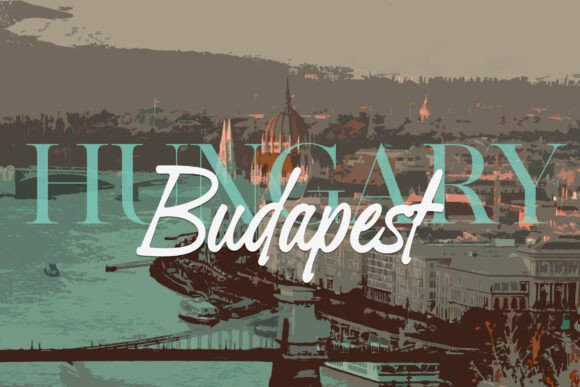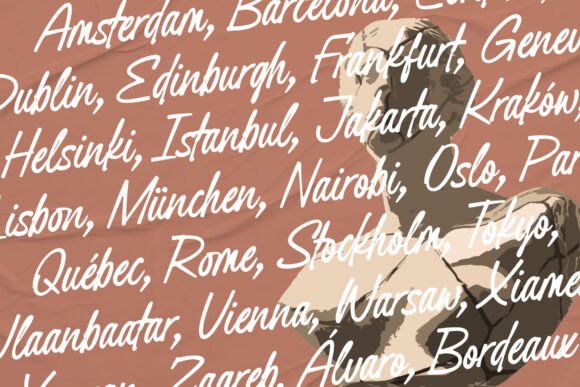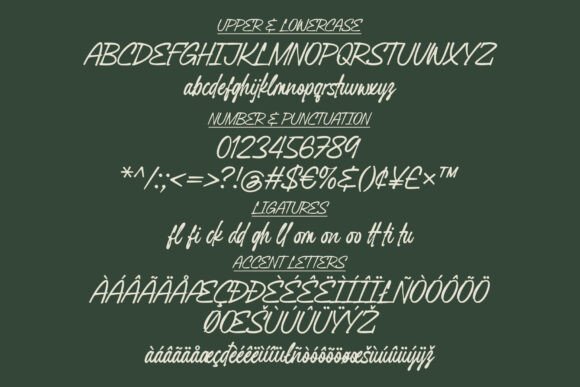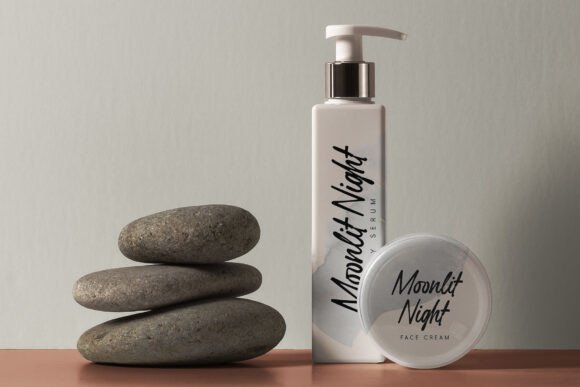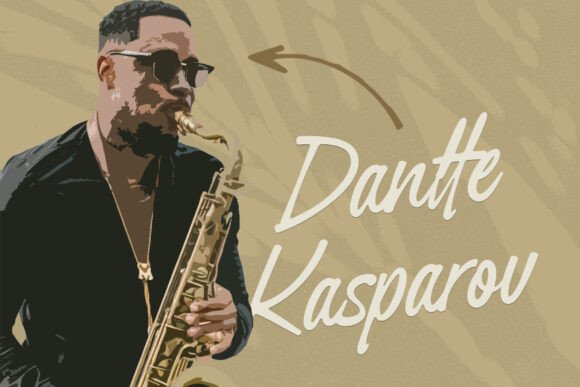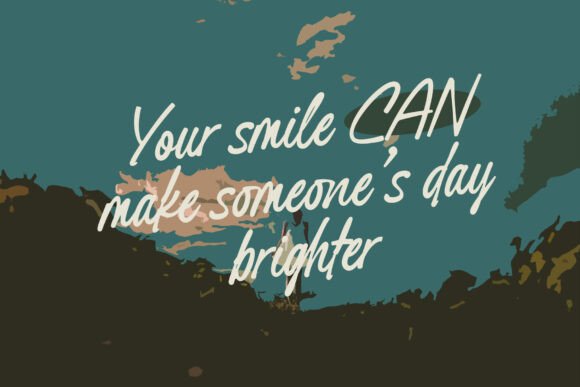
Introduction to Celestial Signature Font
Have you ever been working on a creative project and felt like your design is missing that special something? You’ve tried different fonts, colors, and layouts, but nothing seems to bring it all together. For designers, finding the perfect font can be a game-changer. That’s where the Celestial Signature Font comes in – a stunning script font designed to elevate your designs and leave a lasting impression.
With its smooth and structured design, the Celestial Signature Font is perfect for branding, promotional materials, formal invitations, and digital media. Its solid lines and balanced contrast make it both highly legible and elegant, making it a valuable addition to any designer’s toolkit. Whether you’re looking for a free download to add some flair to your next project or a high-quality design resource to take your work to the next level, the Celestial Signature Font is sure to impress.
One of the standout features of the Celestial Signature Font is its versatility. You can use it with a transparent background to create a stunning visual effect or pair it with a bold color to make a statement. With its high-quality design and limitless creative possibilities, the Celestial Signature Font is an essential resource for any designer looking to take their work to new heights.
Key Features of Celestial Signature Font
- The Celestial Signature Font is a high-quality design resource that offers a unique and creative way to add a touch of elegance to any project.
- The font includes a wide range of characters, including uppercase and lowercase letters, numbers, and special characters, making it suitable for a variety of creative projects.
- The Celestial Signature Font is a versatile design resource that is perfect for adding a touch of sophistication and creativity to any project, from wedding invitations to corporate branding.
Honest Review: Celestial Signature Font
As a designer, I’m always on the lookout for high-quality design resources that can elevate my creative projects. The Celestial Signature Font caught my attention with its unique and elegant style.
Here are some things that work well with this font: ✨
- Unique and elegant style that adds a touch of sophistication to any design project
- High-quality design that looks great on both light and dark backgrounds
- Transparent background makes it easy to overlay on top of images or other design elements
However, I did encounter some limitations with this font: ⚠️
- May not be suitable for very large-scale design projects due to its unique style
Overall, I think the Celestial Signature Font is a great addition to any designer’s toolkit, but it may not be the best fit for every project. I would definitely consider using it for smaller-scale creative projects where its unique style can shine.
Celestial Signature Font
To get the most out of the Celestial Signature Font, use it in bold and large font sizes to make a statement. You can also combine it with other design elements, such as graphics and textures, to create a unique look.
The Celestial Signature Font is ideal for:
- Invitations and event graphics
- Marketing materials and social media posts